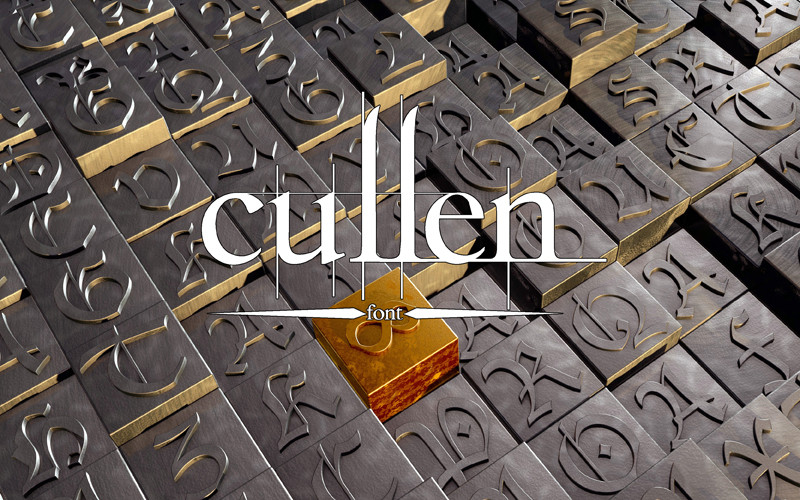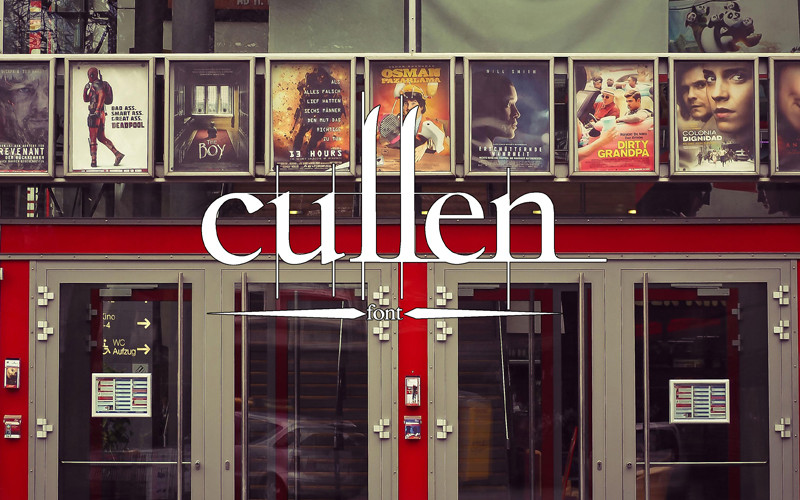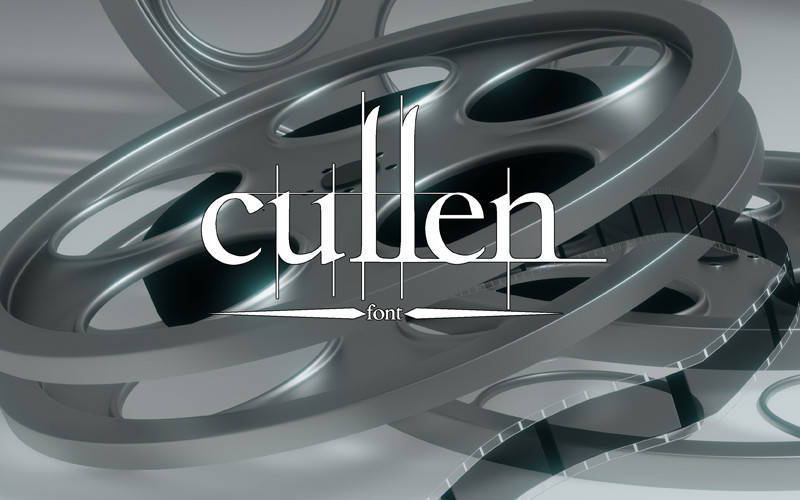
Twilight Cullen Font
Directly from the film directed by Catherine Hardwicke and starring Kristen Stewart and Robert Pattinson, the new font for all fans of the film.
Direttamente dal film diretto da Catherine Hardwicke e interpretato da Kristen Stewart e Robert Pattinson, il font inedito per tutti gli estimatori del film.